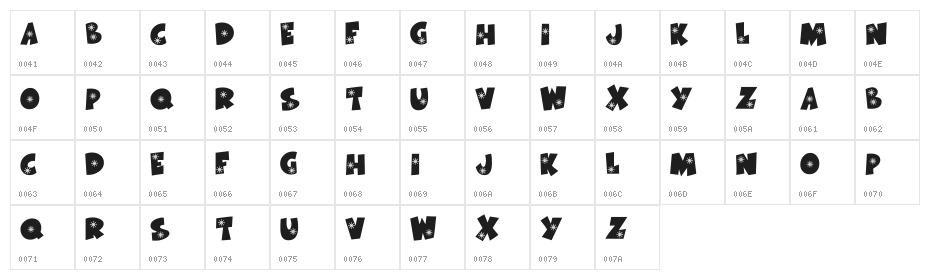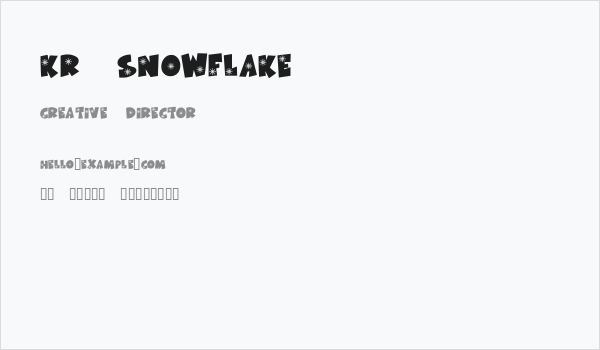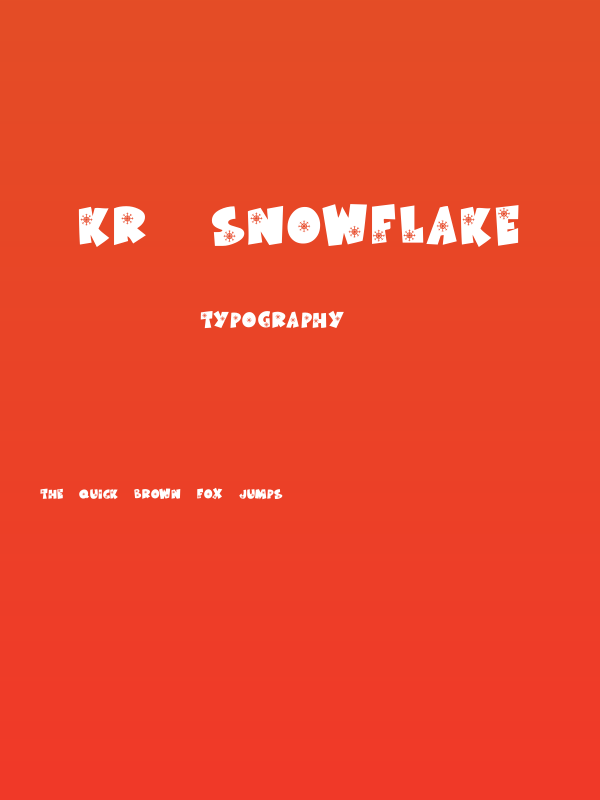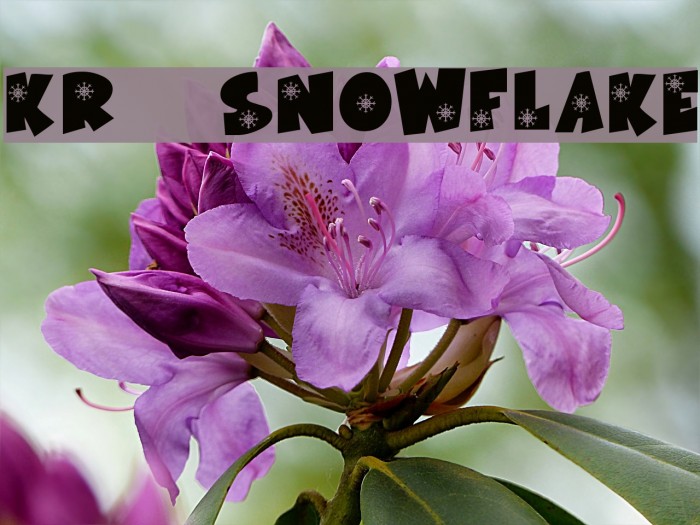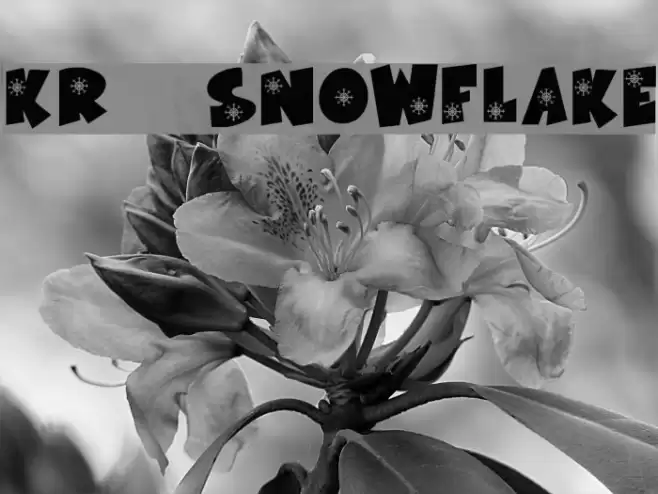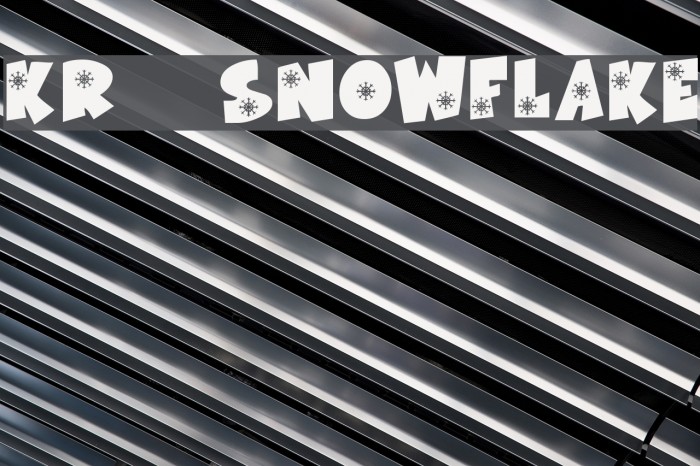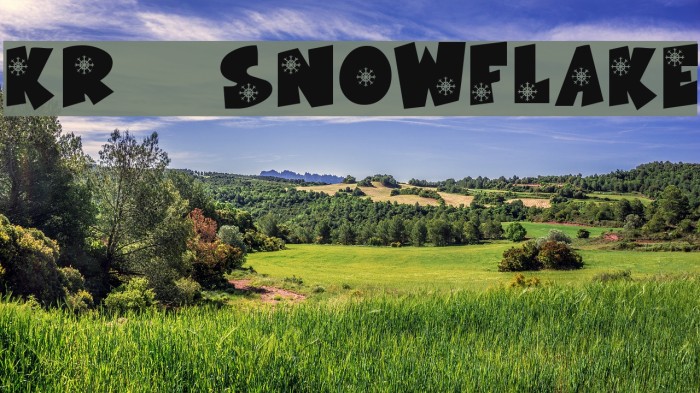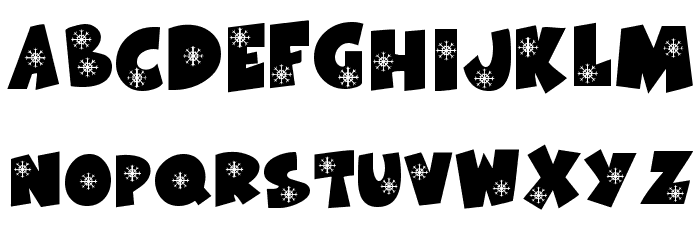
KR Snowflake Font
KR Snowflake Description
This playful and decorative font features bold, uppercase letters adorned with snowflake motifs, creating a whimsical winter theme. The characters are slightly tilted, adding a dynamic and festive feel. The font is designed to capture attention with its bold strokes and unique embellishments, making it ideal for holiday-themed projects. The absence of lowercase letters and numbers emphasizes its use as a display font, focusing on creativity and visual impact. The snowflake details are integrated seamlessly into the letterforms, enhancing the overall aesthetic without compromising readability.
| Proposed Projects | Ideal for holiday cards, winter event posters, festive banners, and seasonal branding. |